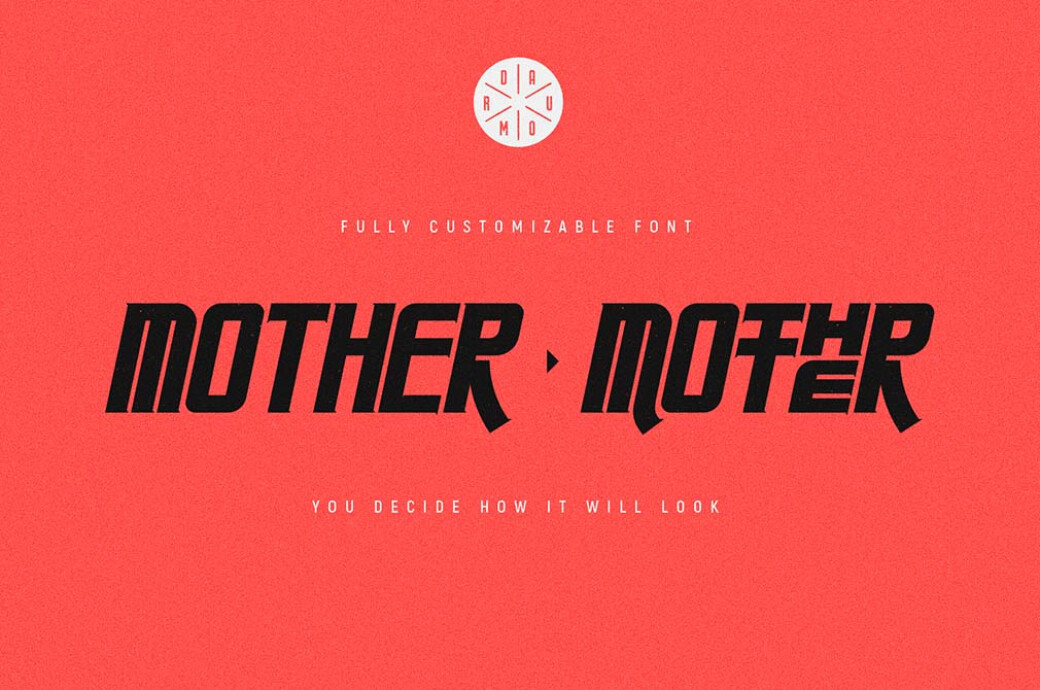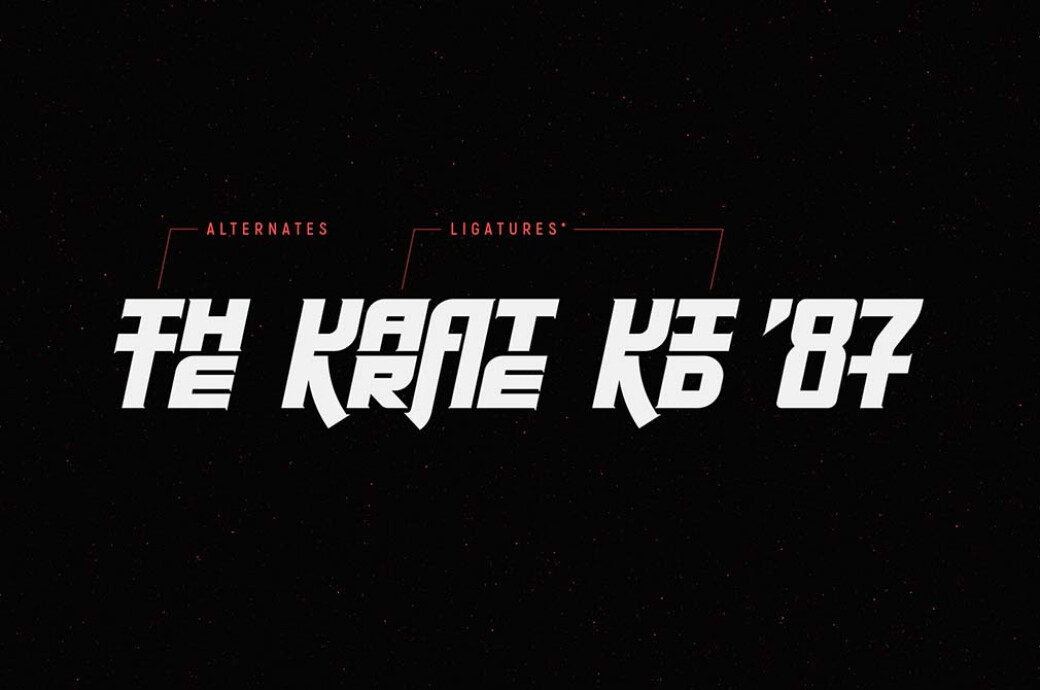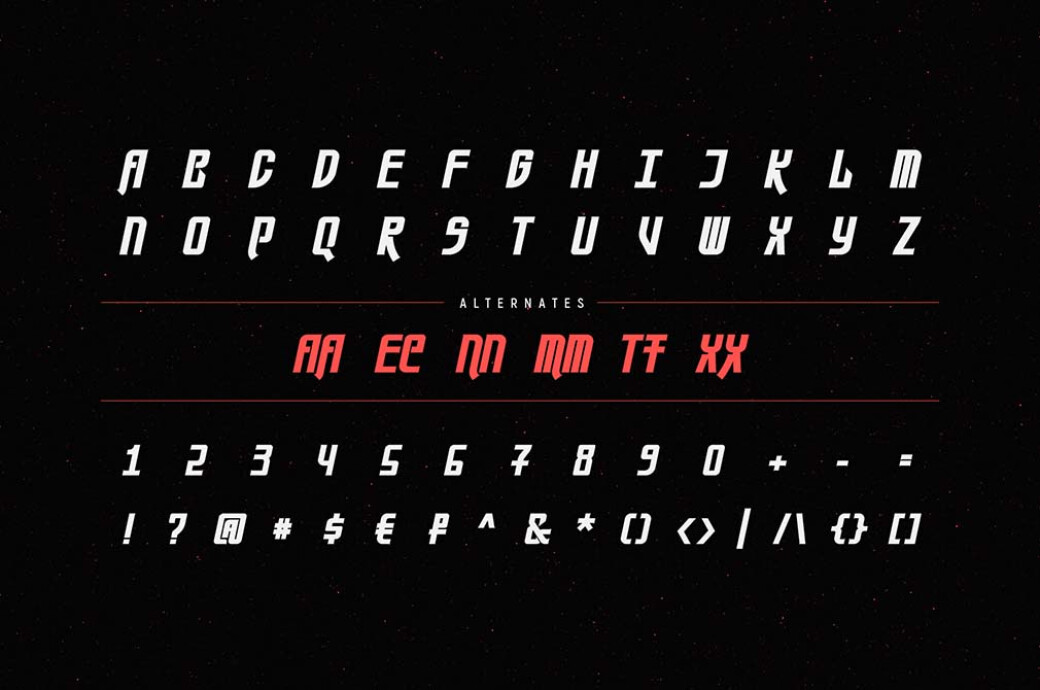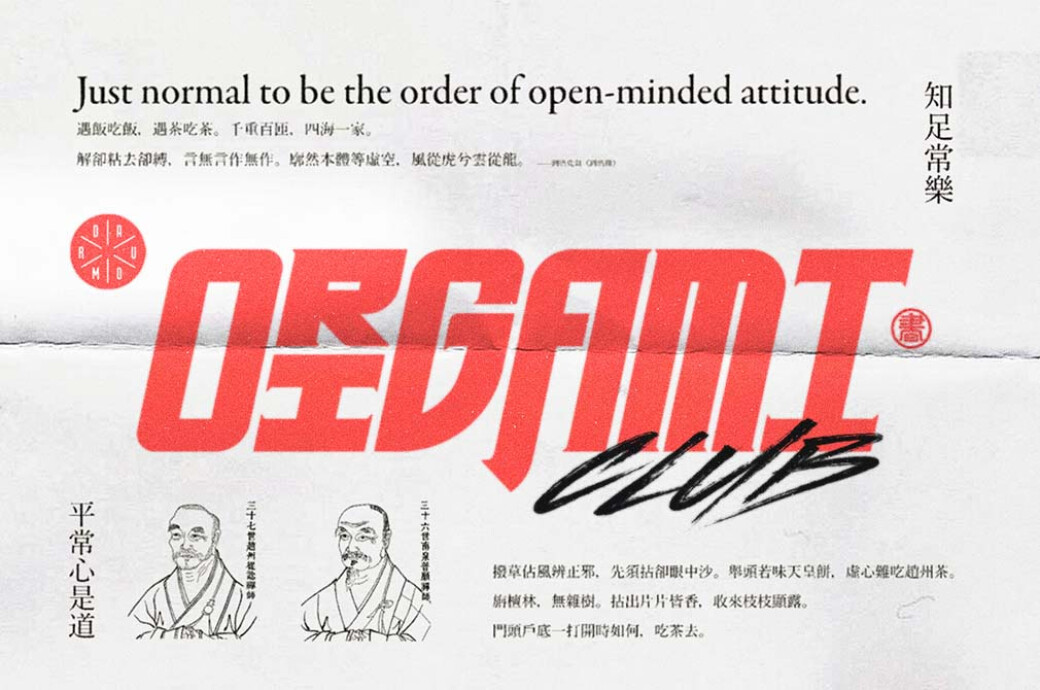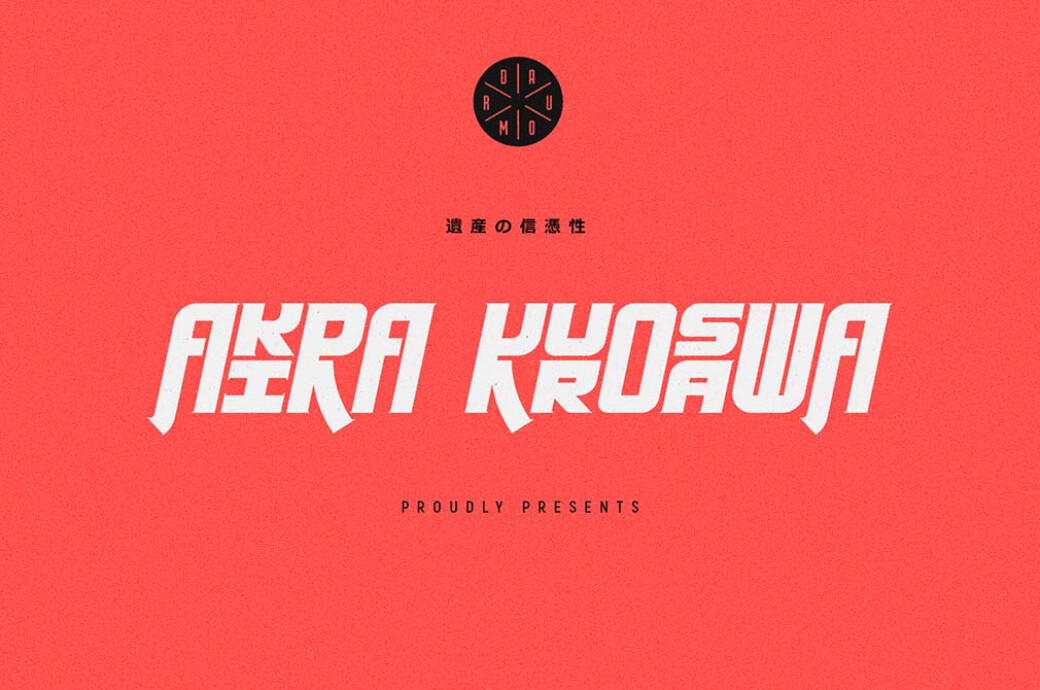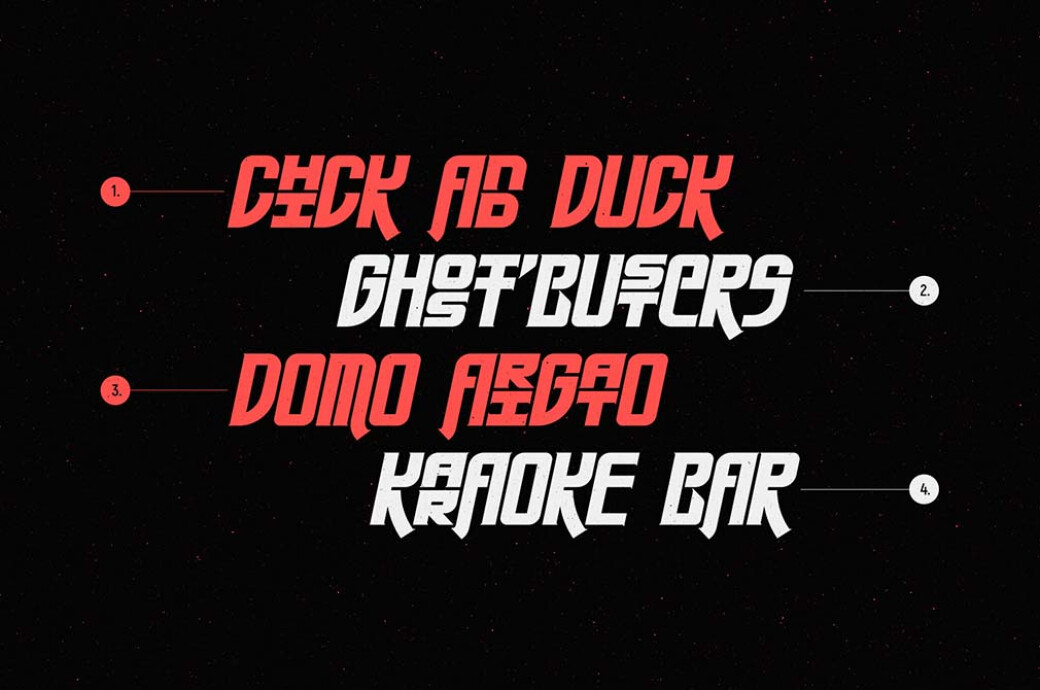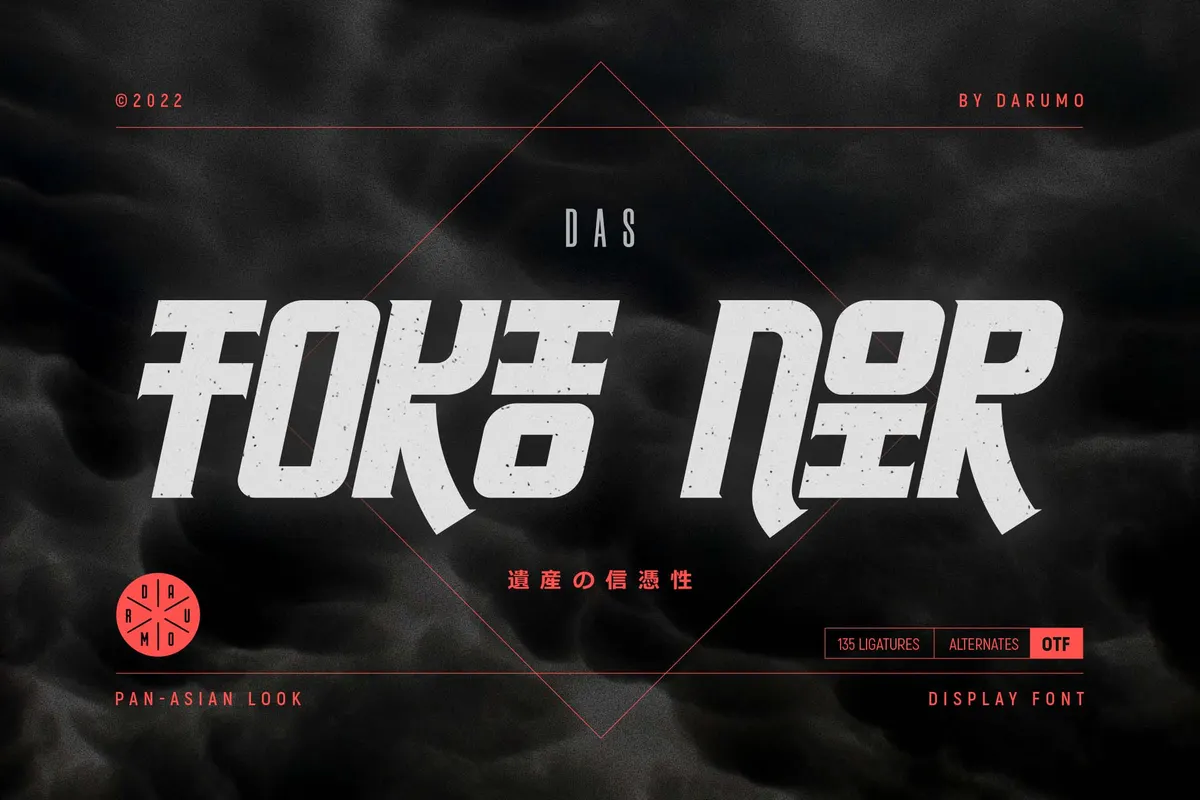
TOKIO NOIR Display Font
A jewel in your toolbox! Meet TOKIO NOIR, the eye-catching display font with an Asian temper motion in every character.We have always treasured Asian writing, where every character looks like a piece of calligraphic art. So, TOKIO NOIR is an attempt to reinvent Western writing using the Oriental approach. It brings the Japanese pictorial emotionality on the one hand and thoughtful European pragmatism on the other — two opposite concepts brought together for a perfect design match! The font is all-caps, coming with numerals and punctuation marks. We're convinced you'll find it perfect for catchy logo or emblem designs, packaging, prints, apparel, etc.